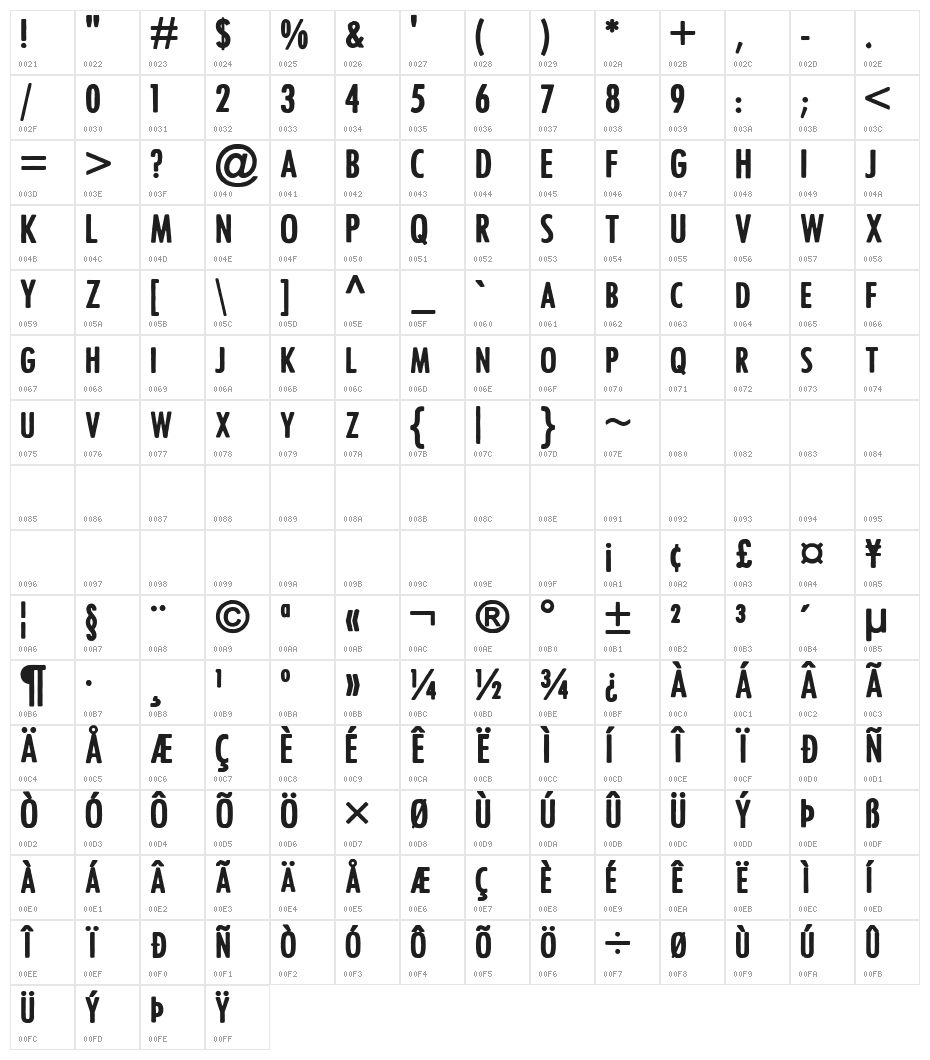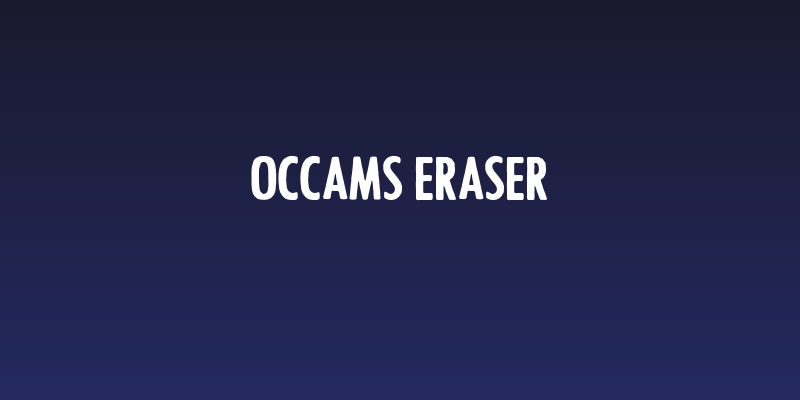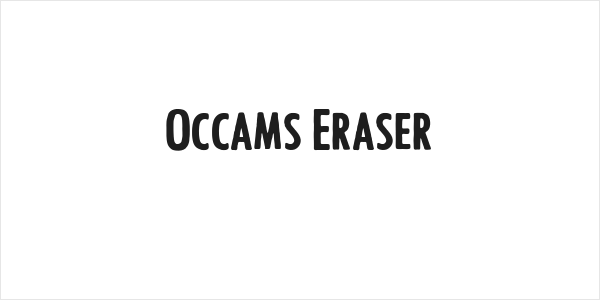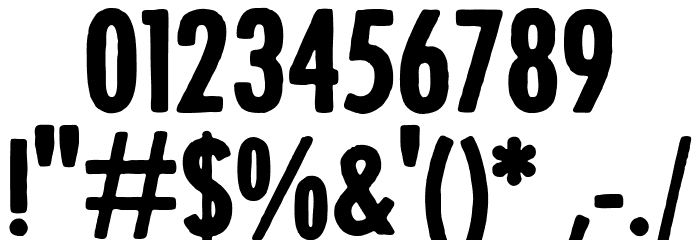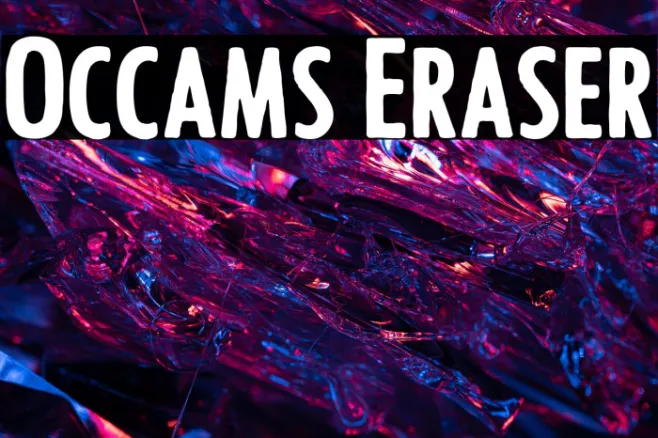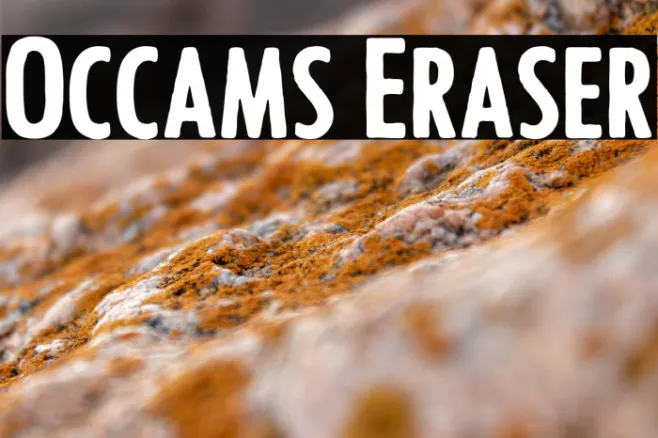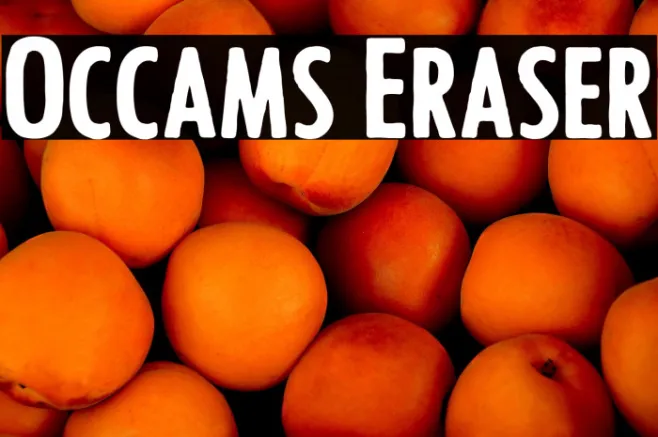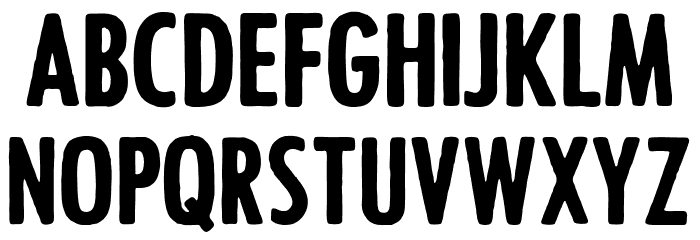
Occams Eraser Font
Occams Eraser Description
This font features bold, rounded characters with a playful and slightly retro aesthetic. The letters are evenly spaced, with a consistent stroke width that gives it a uniform appearance. The uppercase and lowercase letters maintain a cohesive style, making it versatile for various design needs. The numerals and special characters are designed to match the overall look, ensuring a harmonious appearance across all text elements. Its boldness and unique character shapes make it stand out, suitable for projects that require a strong visual impact.
| Overall Style | Retro, Playful |
| Proposed Projects | Ideal for posters, branding, packaging, and any project needing a bold, eye-catching typeface. |